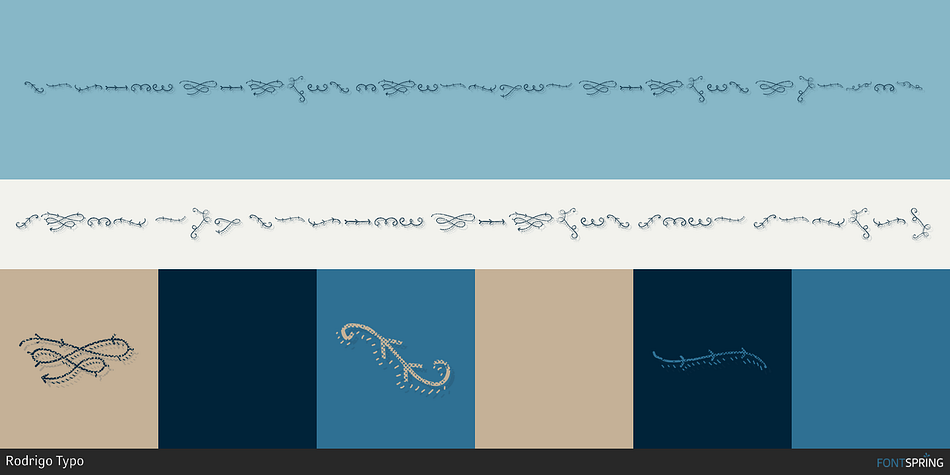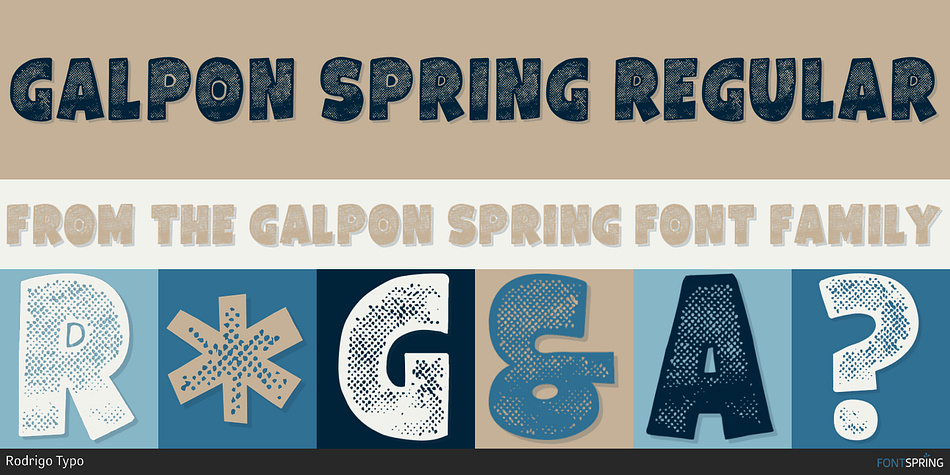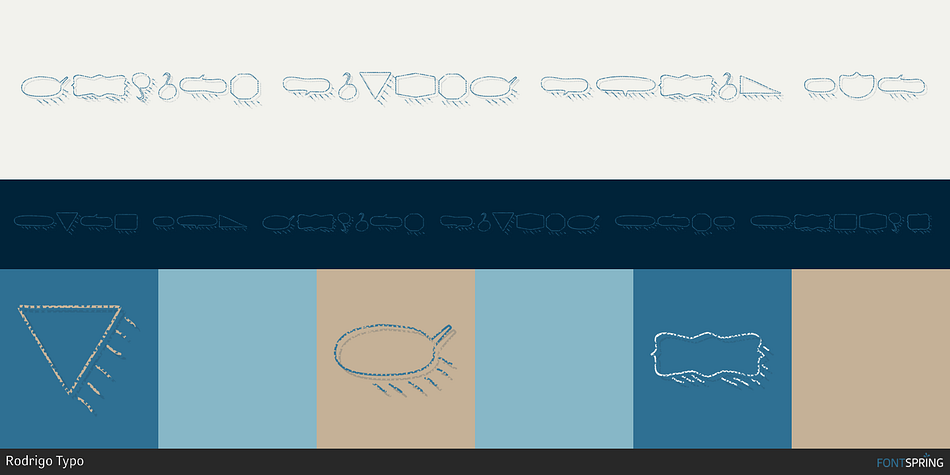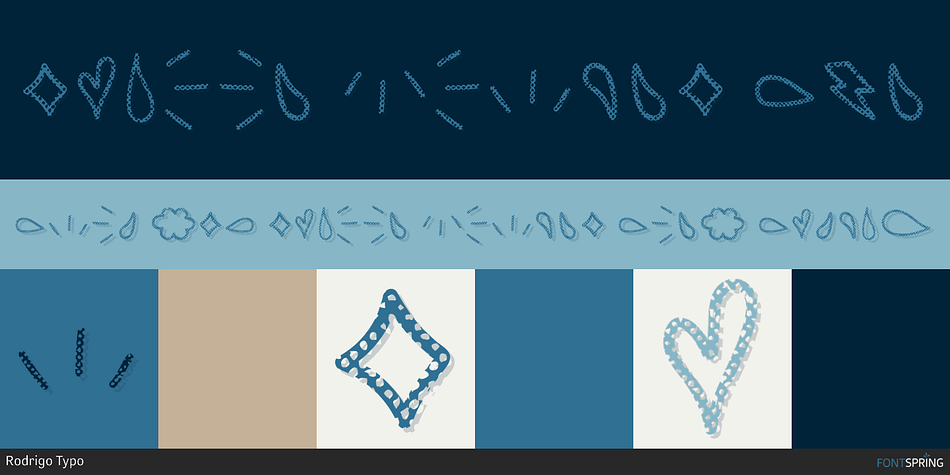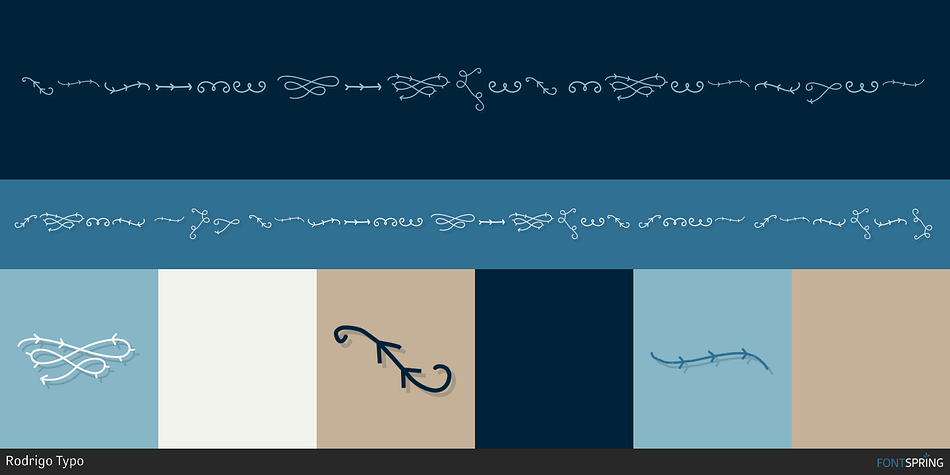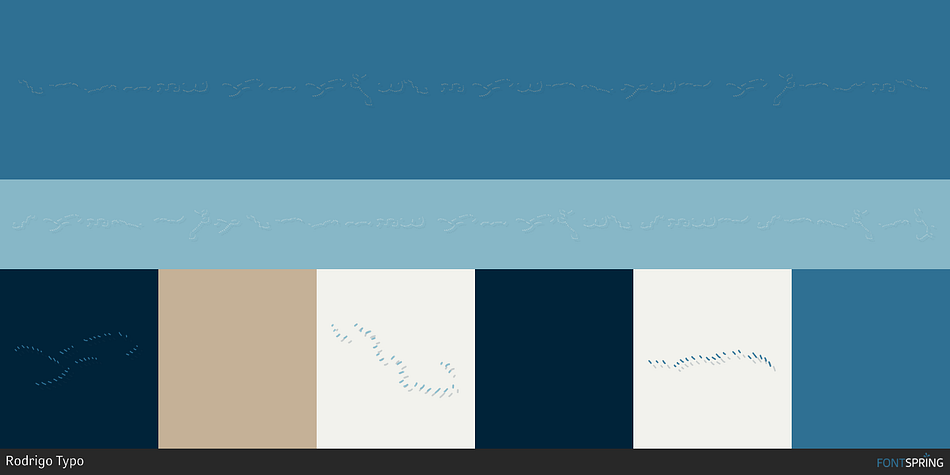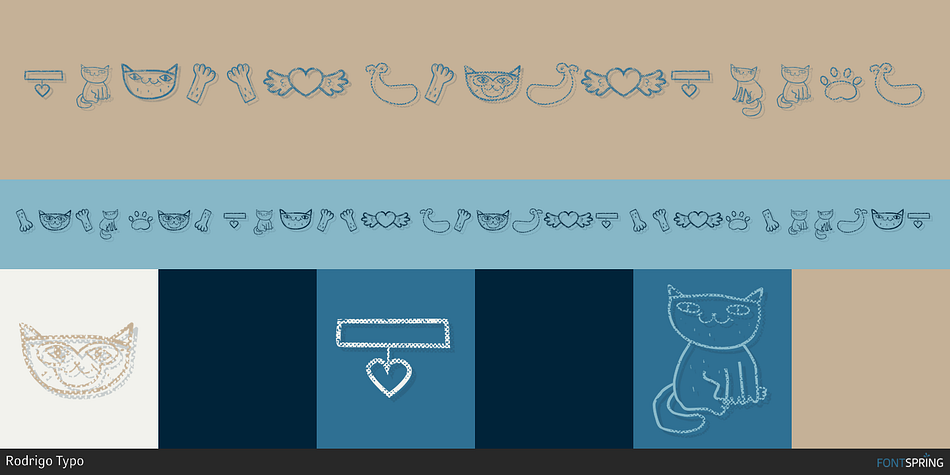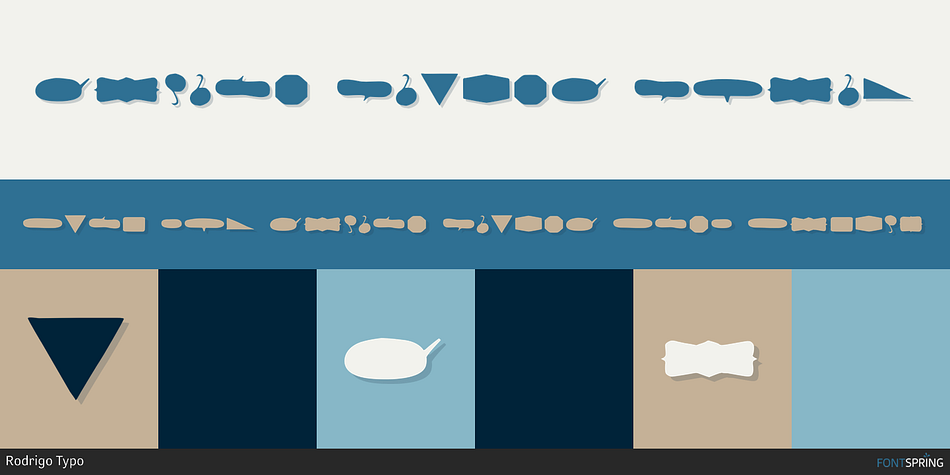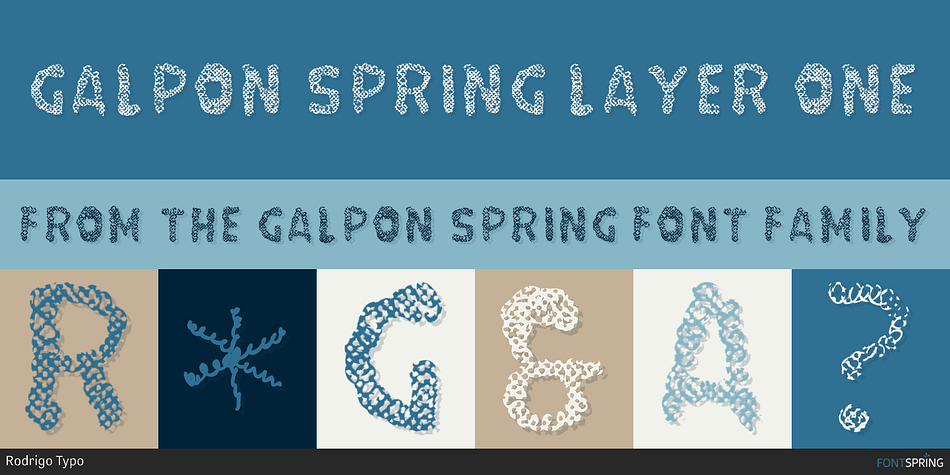
Designed by Rodrigo Araya Salas, Galpon Spring is a dingbat, display and hand display font family. This typeface has eleven styles and was published by Rodrigo Typo.
Galpon Spring Is a new version of “Galpon” where it can be combined with “Layer One” or shadow has multiple variants which makes it very attractive for different designs.
Styles | Display, Hand Display, Dingbat |